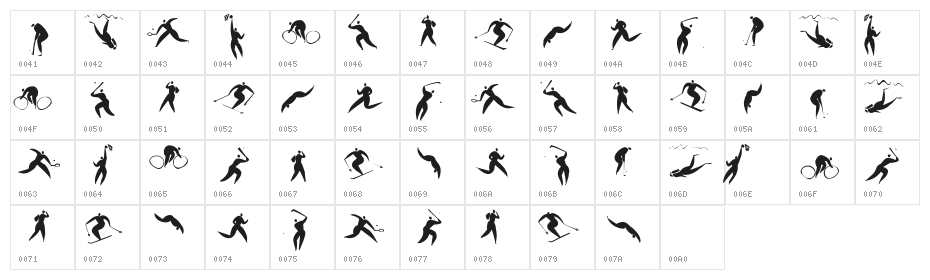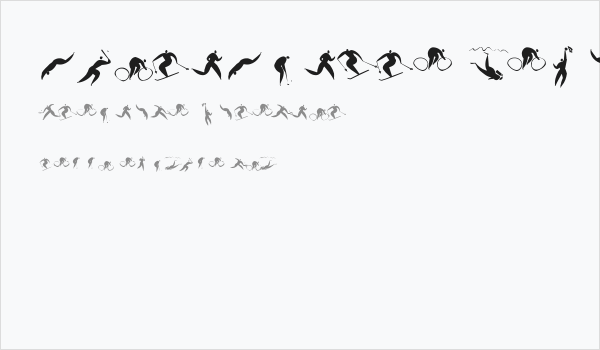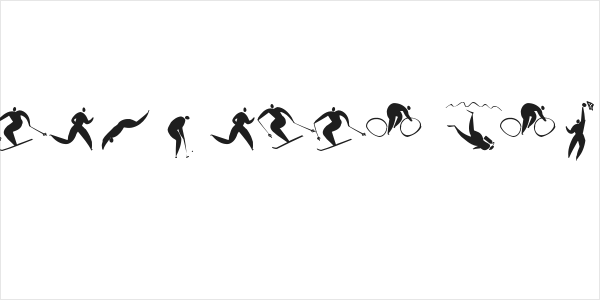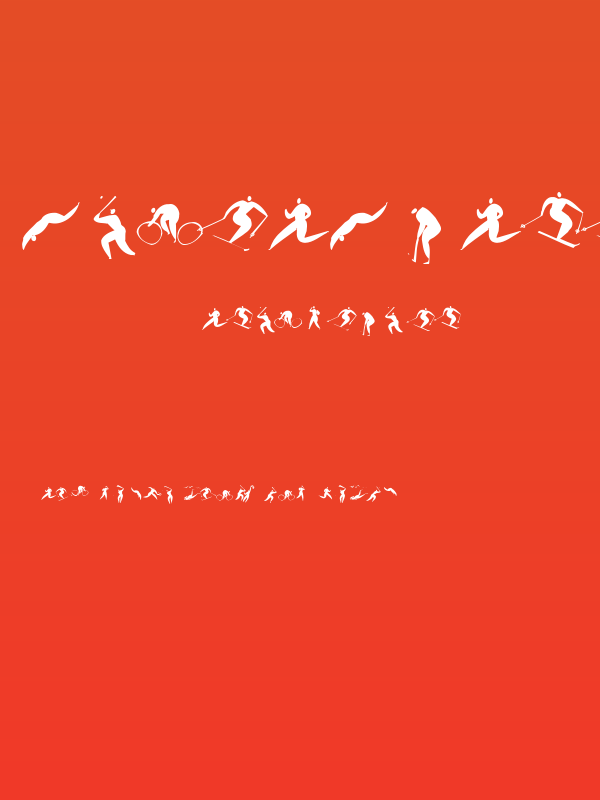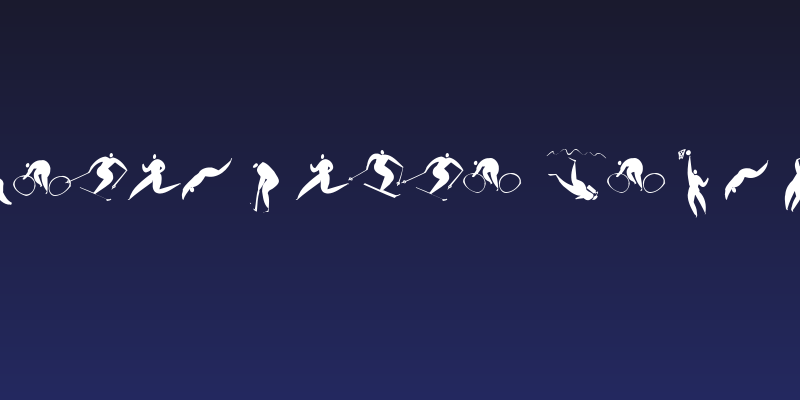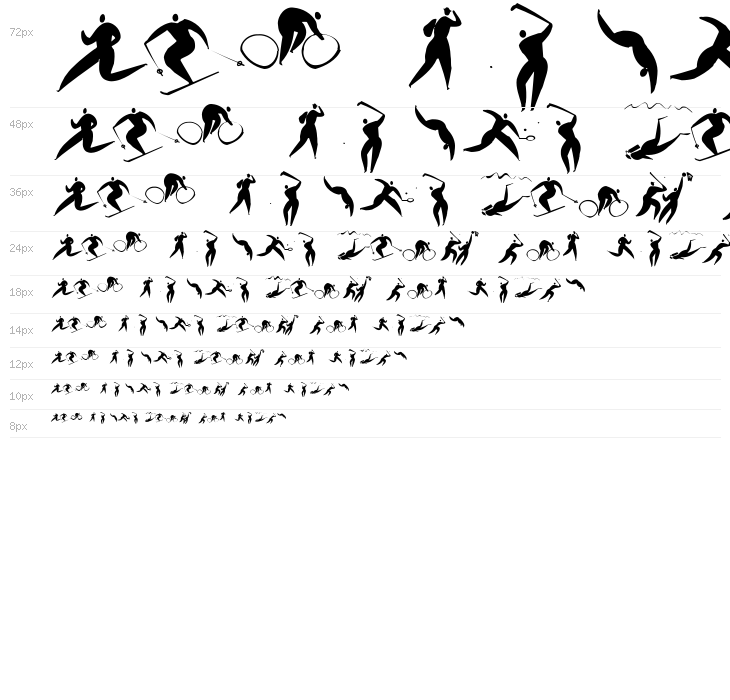
SportSatyre Medium Font
SportSatyre Medium Description
A decorative dingbat font featuring stylized silhouettes of athletes engaged in various sports, rendered in bold, dynamic black shapes with minimal detail and strong, energetic poses.
| Overall Style | Decorative, Modern |
| Use Case | Icons, Thematic graphics, Event branding |
| Proposed Projects | Sports event posters, activity schedules, infographics, educational materials, themed invitations. |